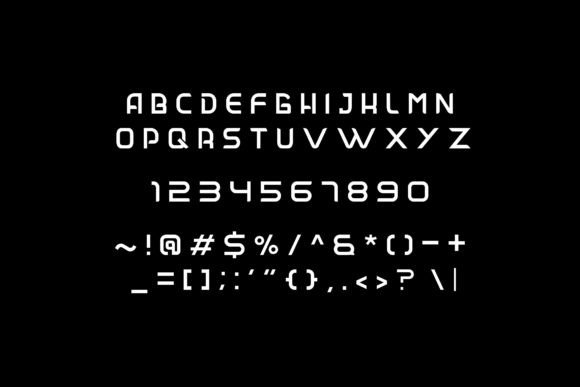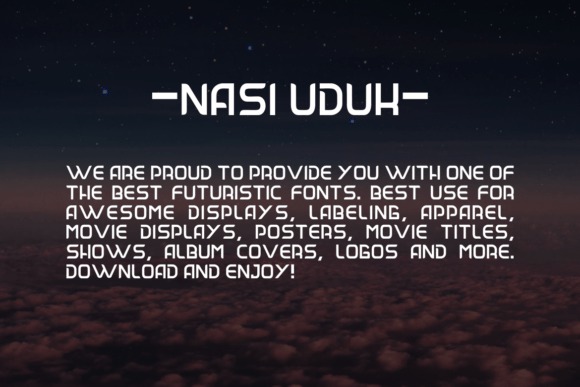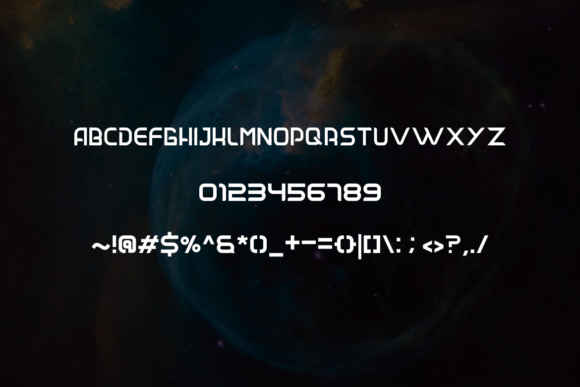
Introduction to Nasi Uduk Font
Nasi Uduk is a cool, modern, and futuristic display font.
Add it to your projects that require a sci-fi look and you will be impressed by the results .